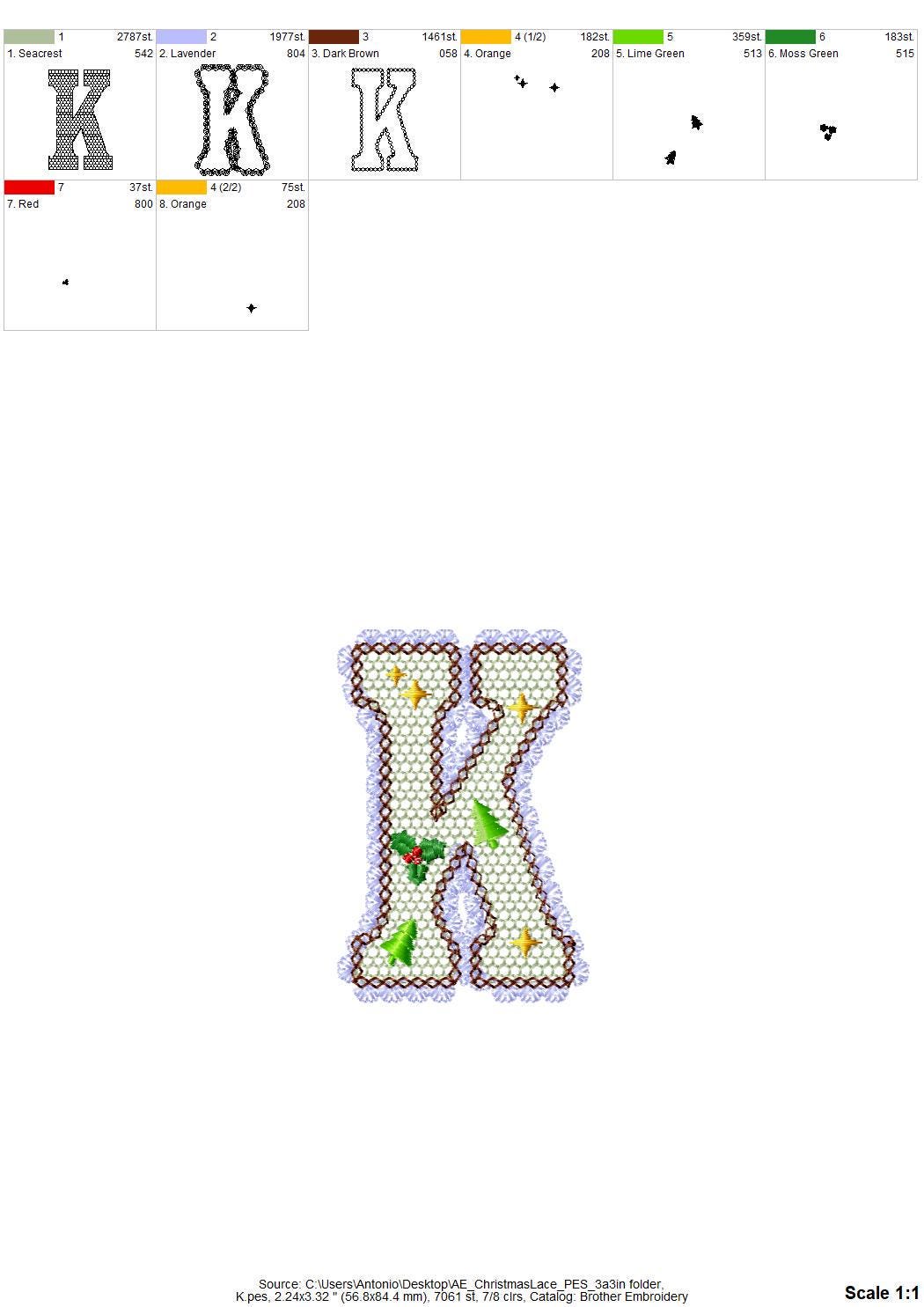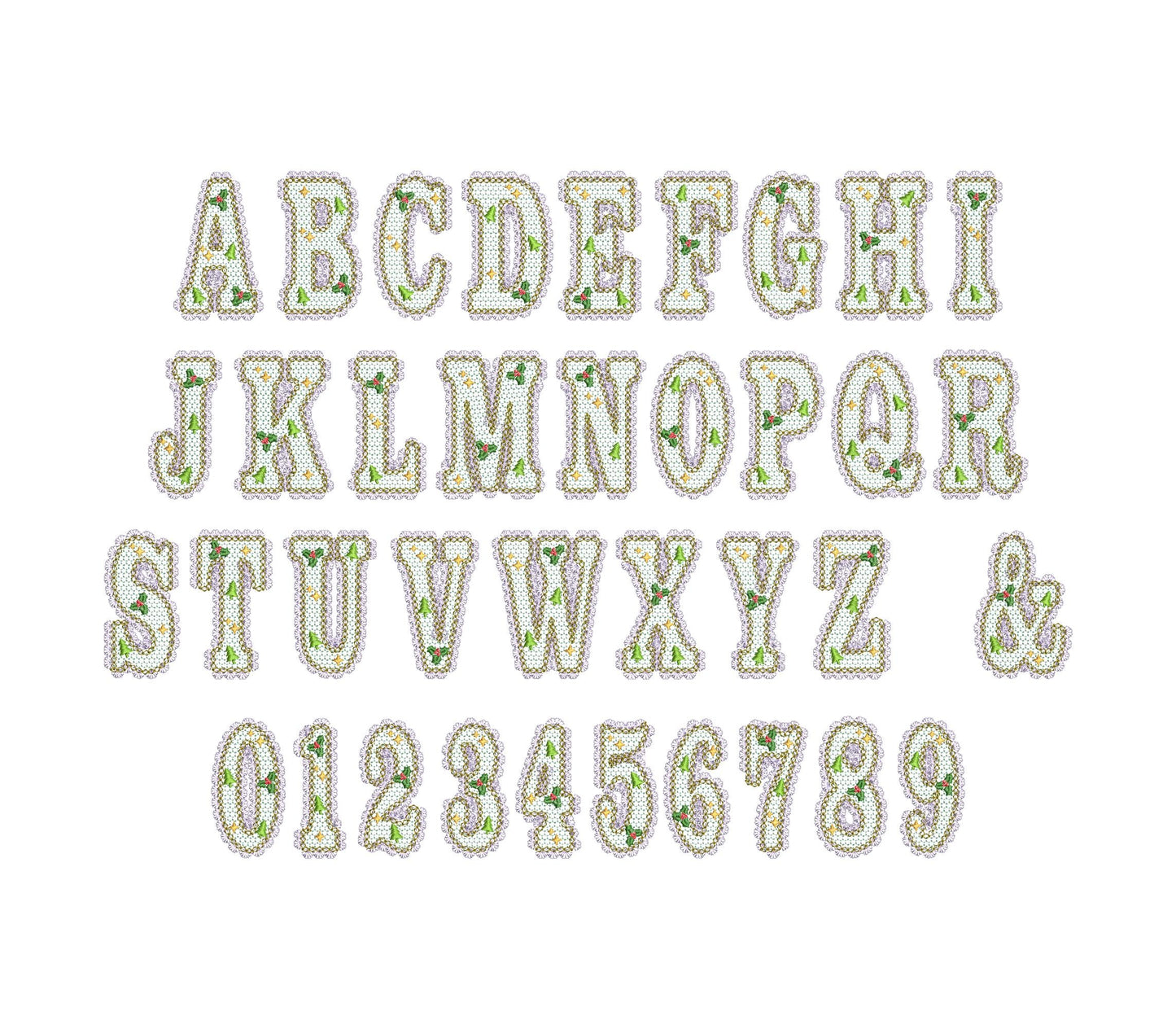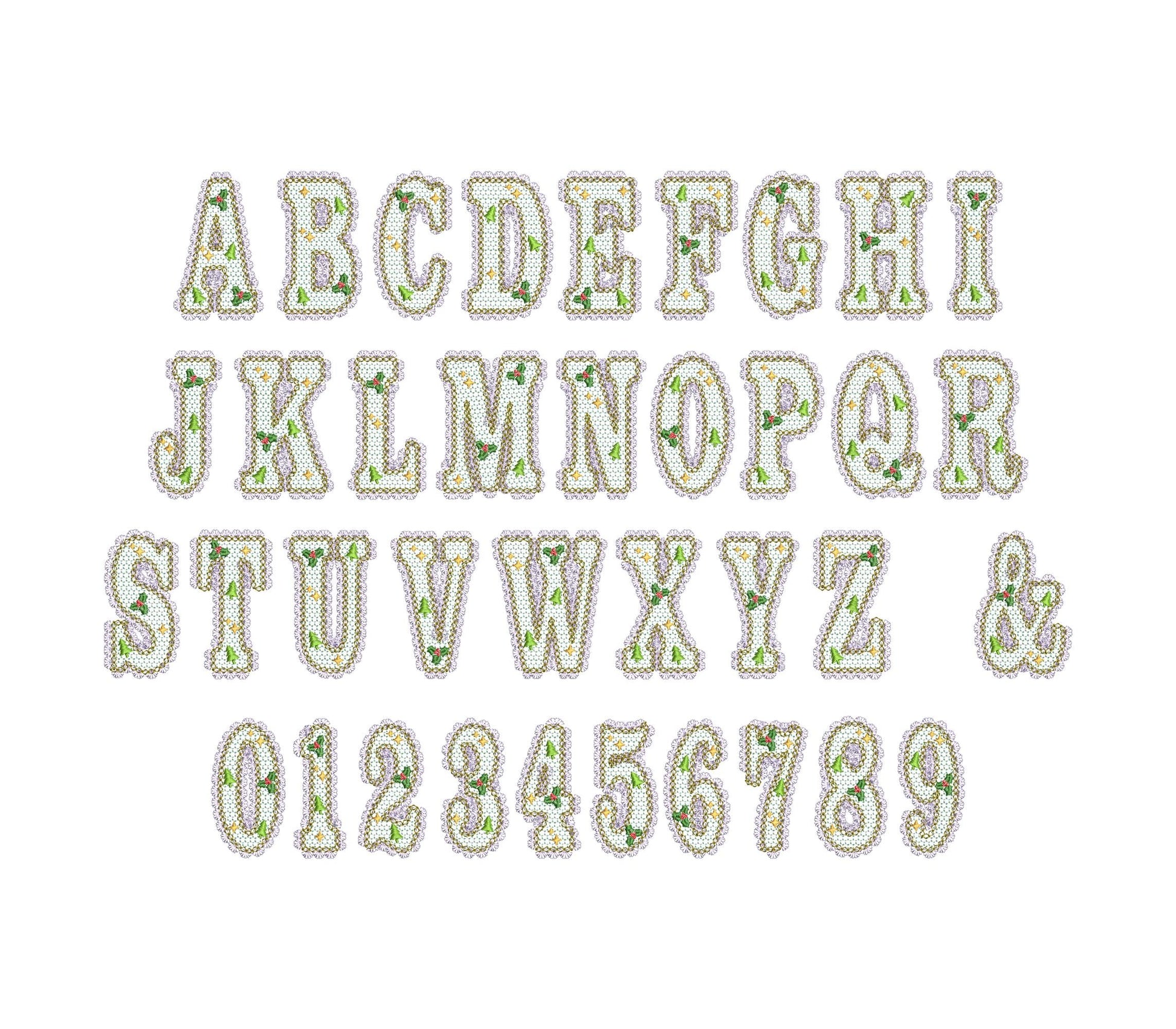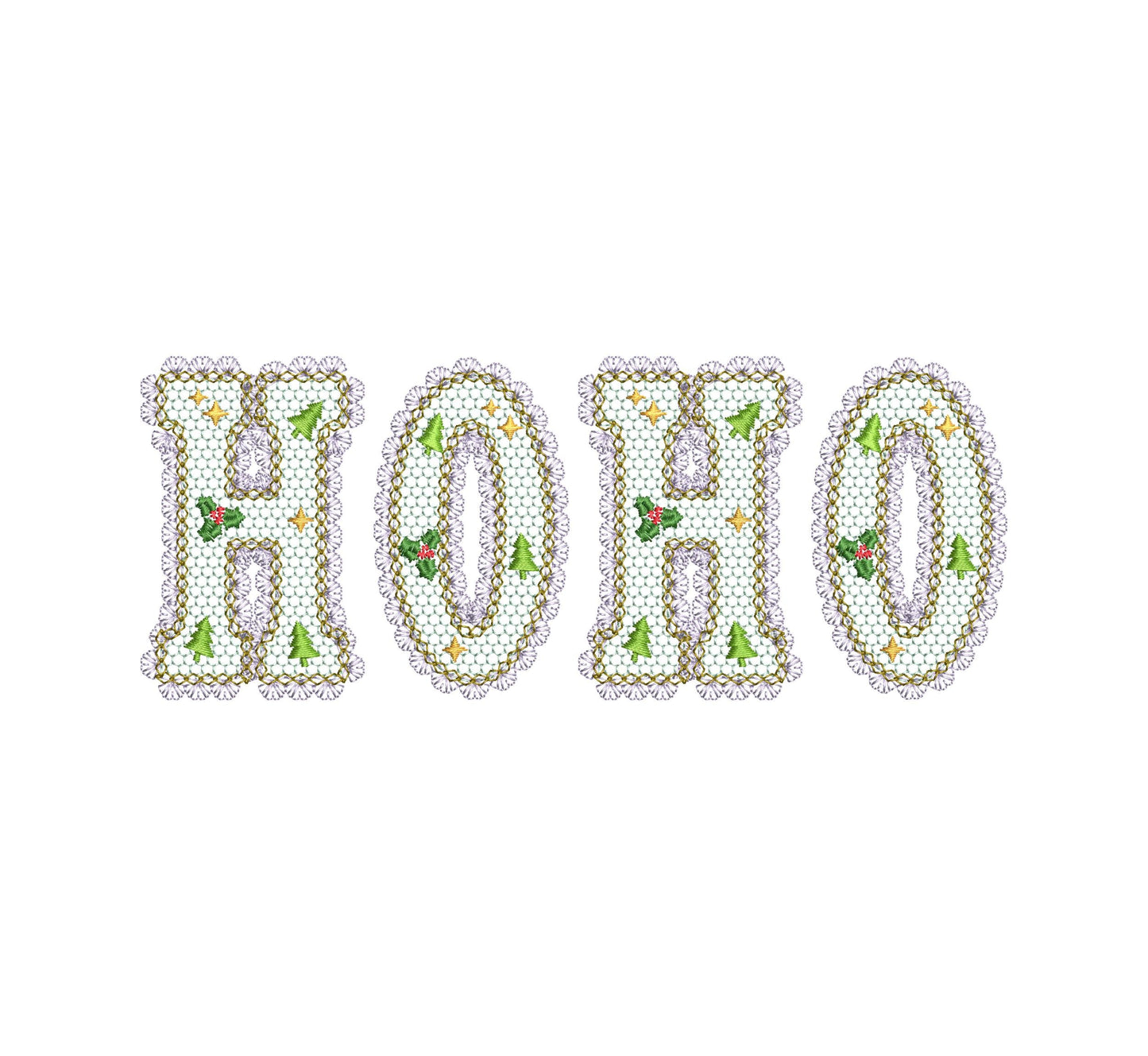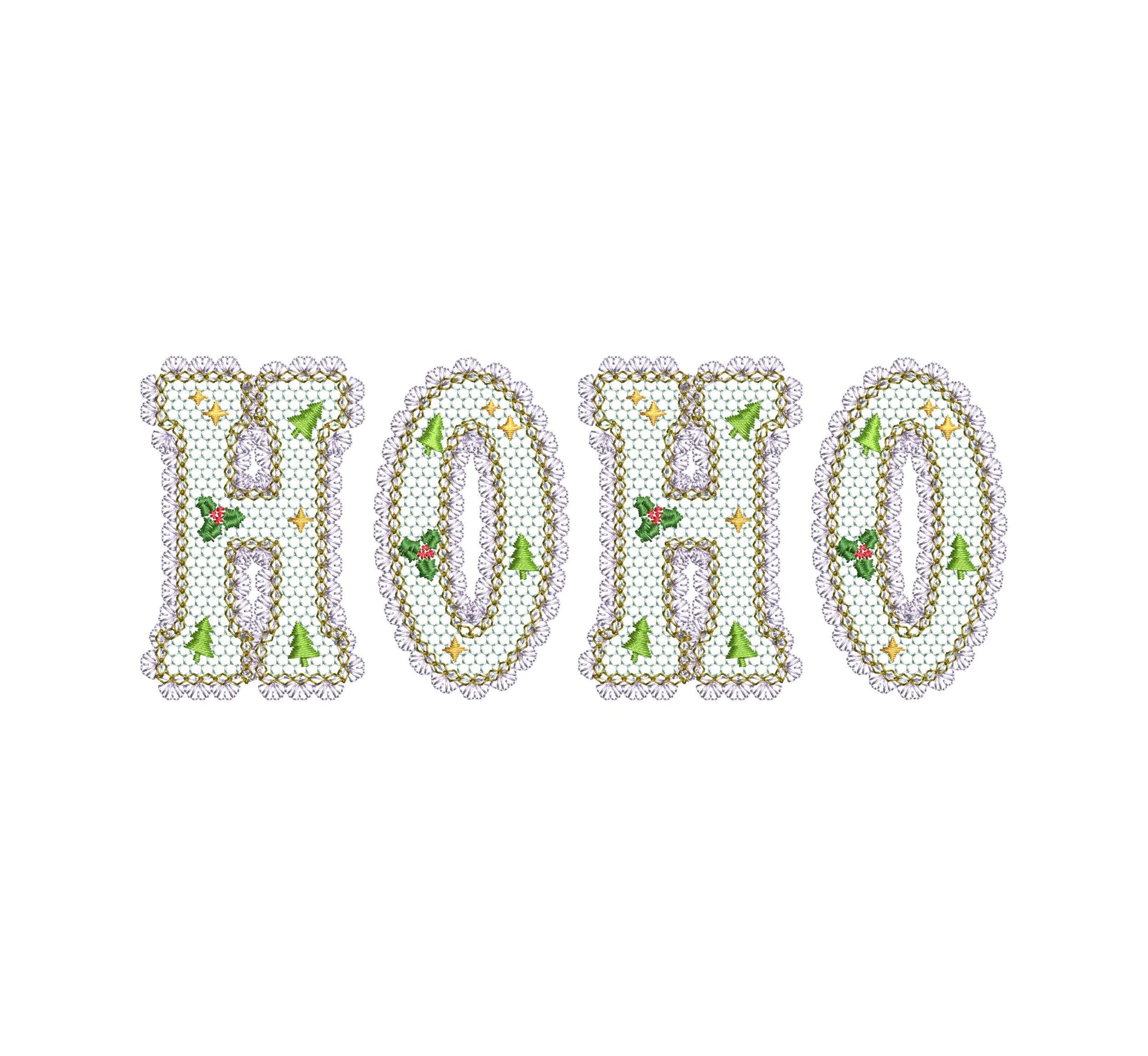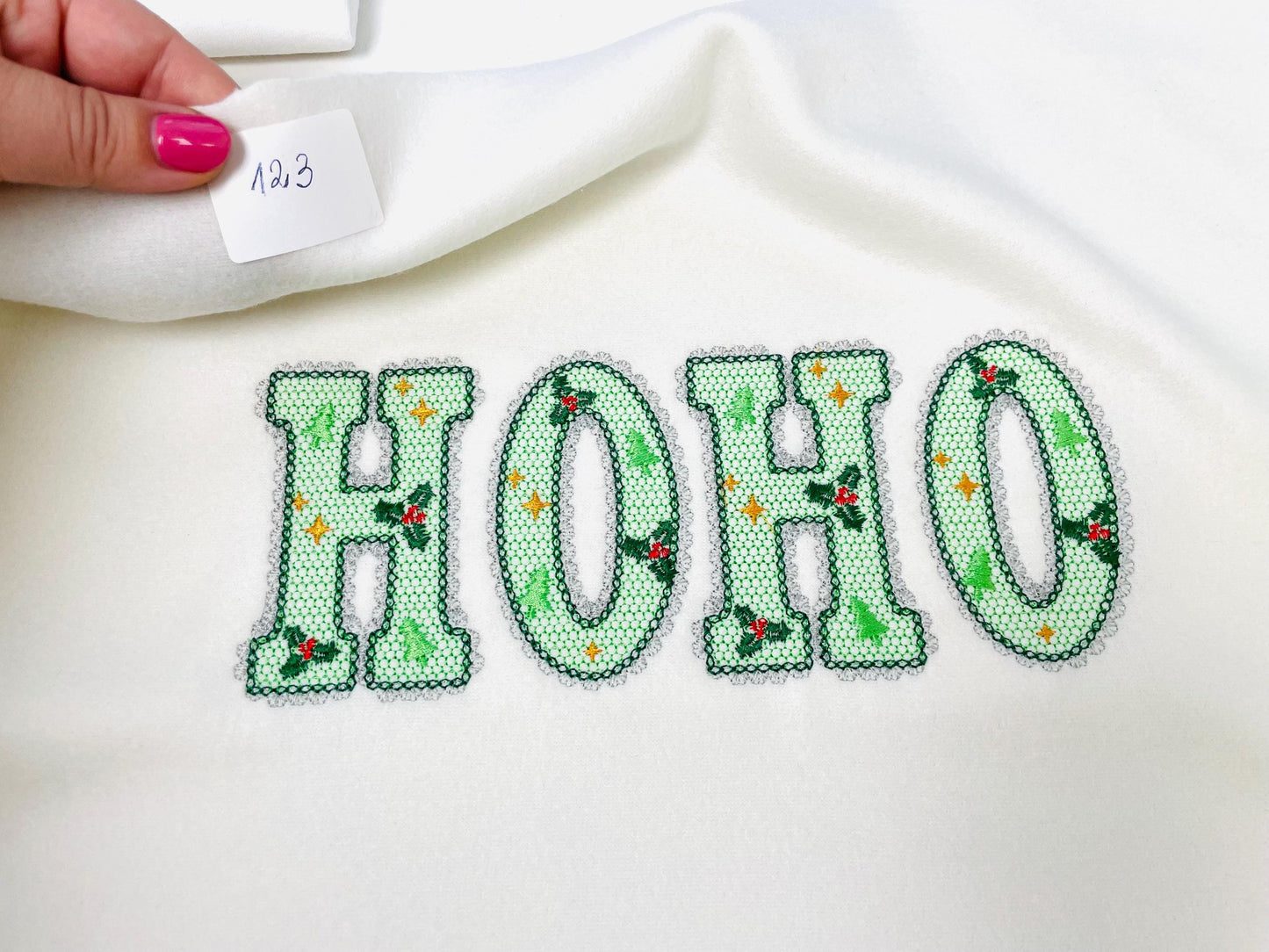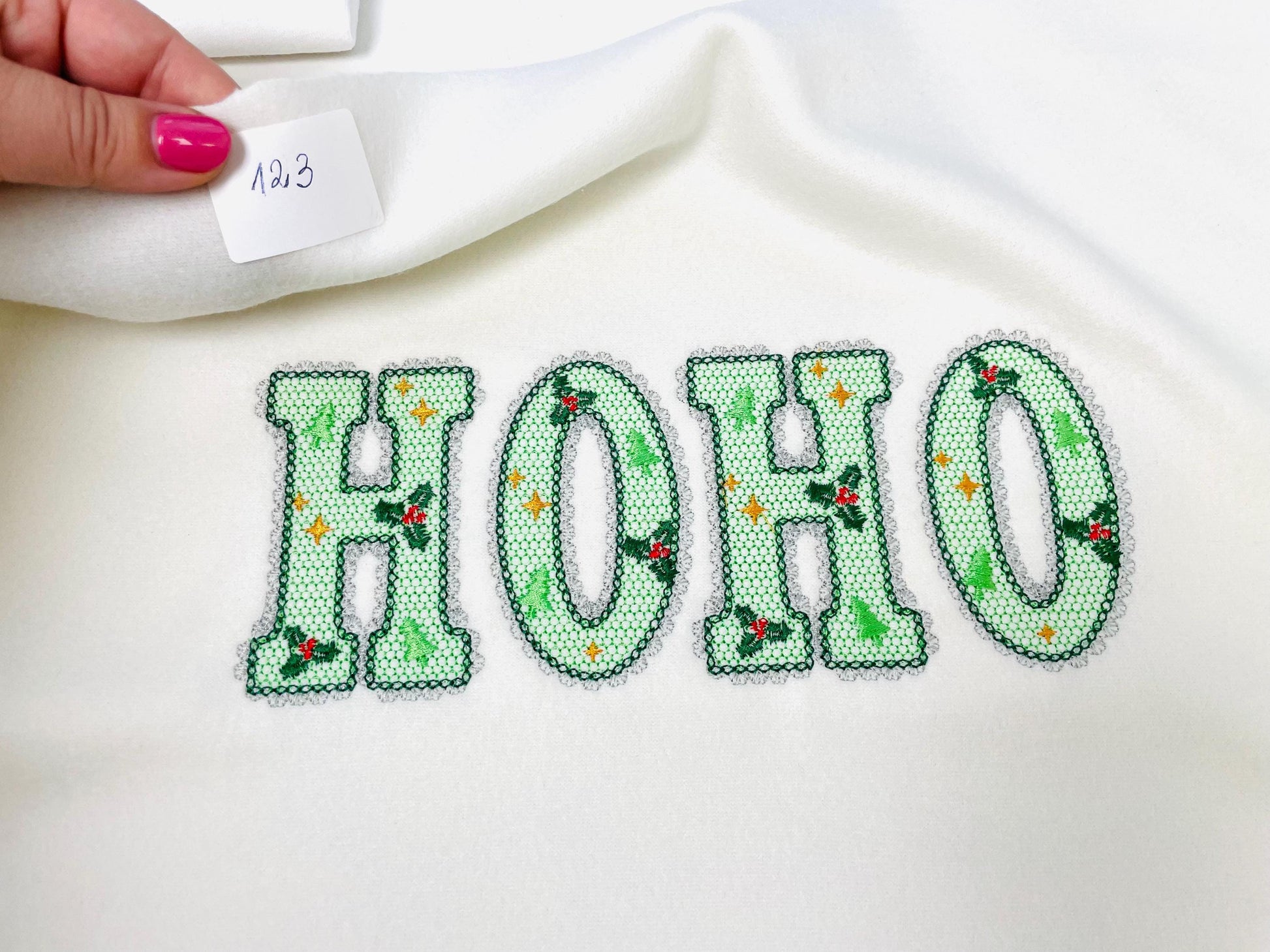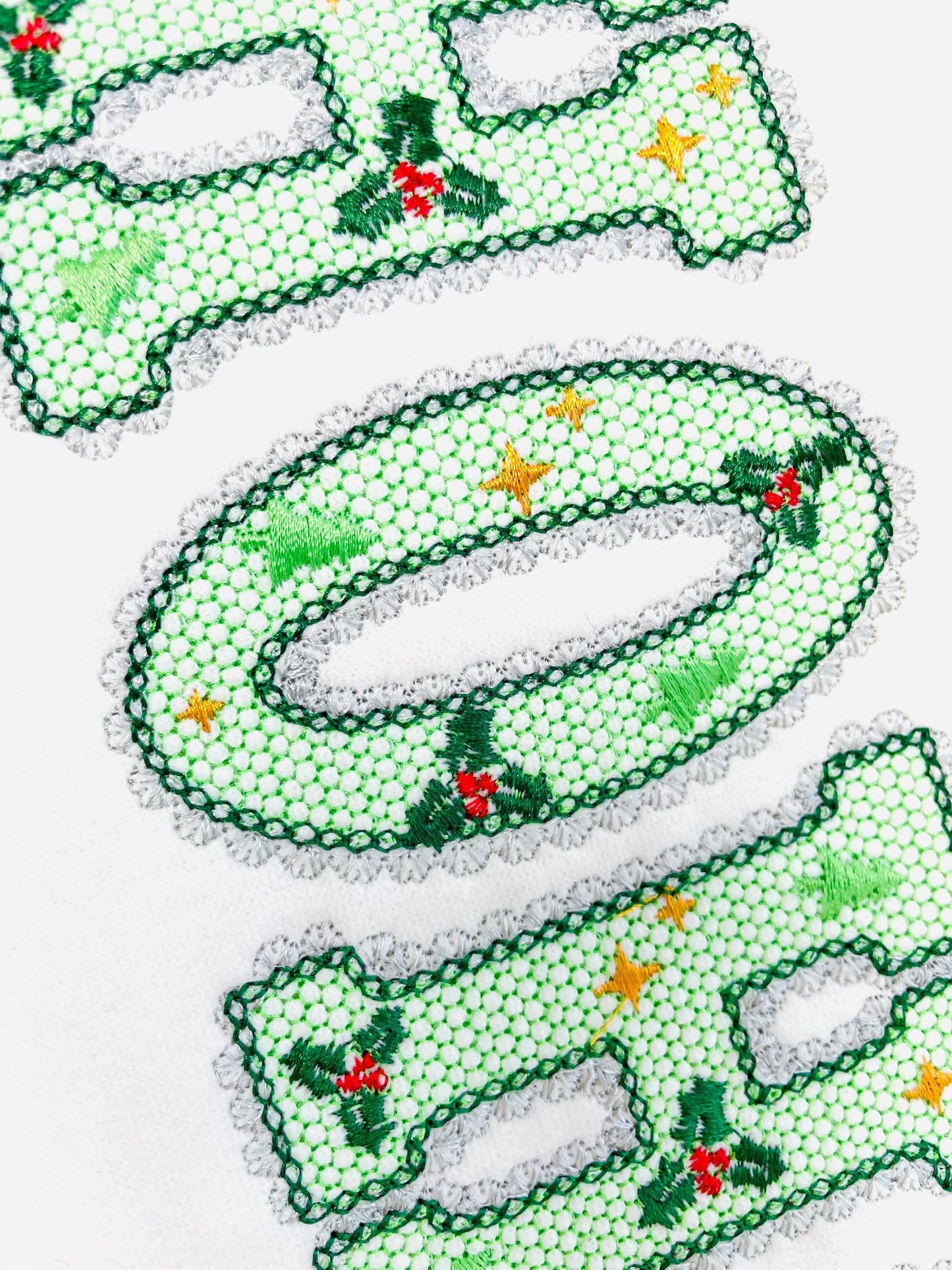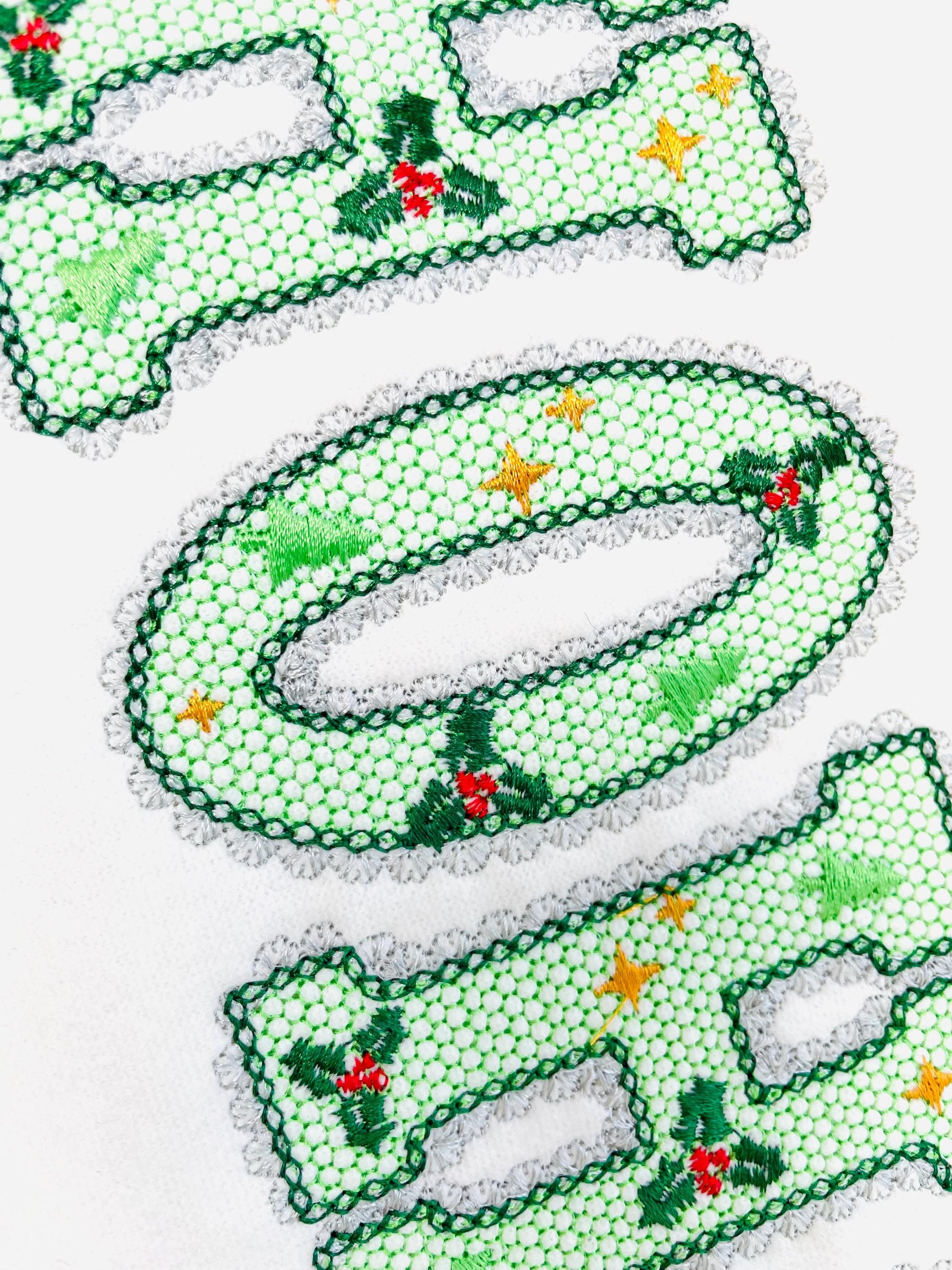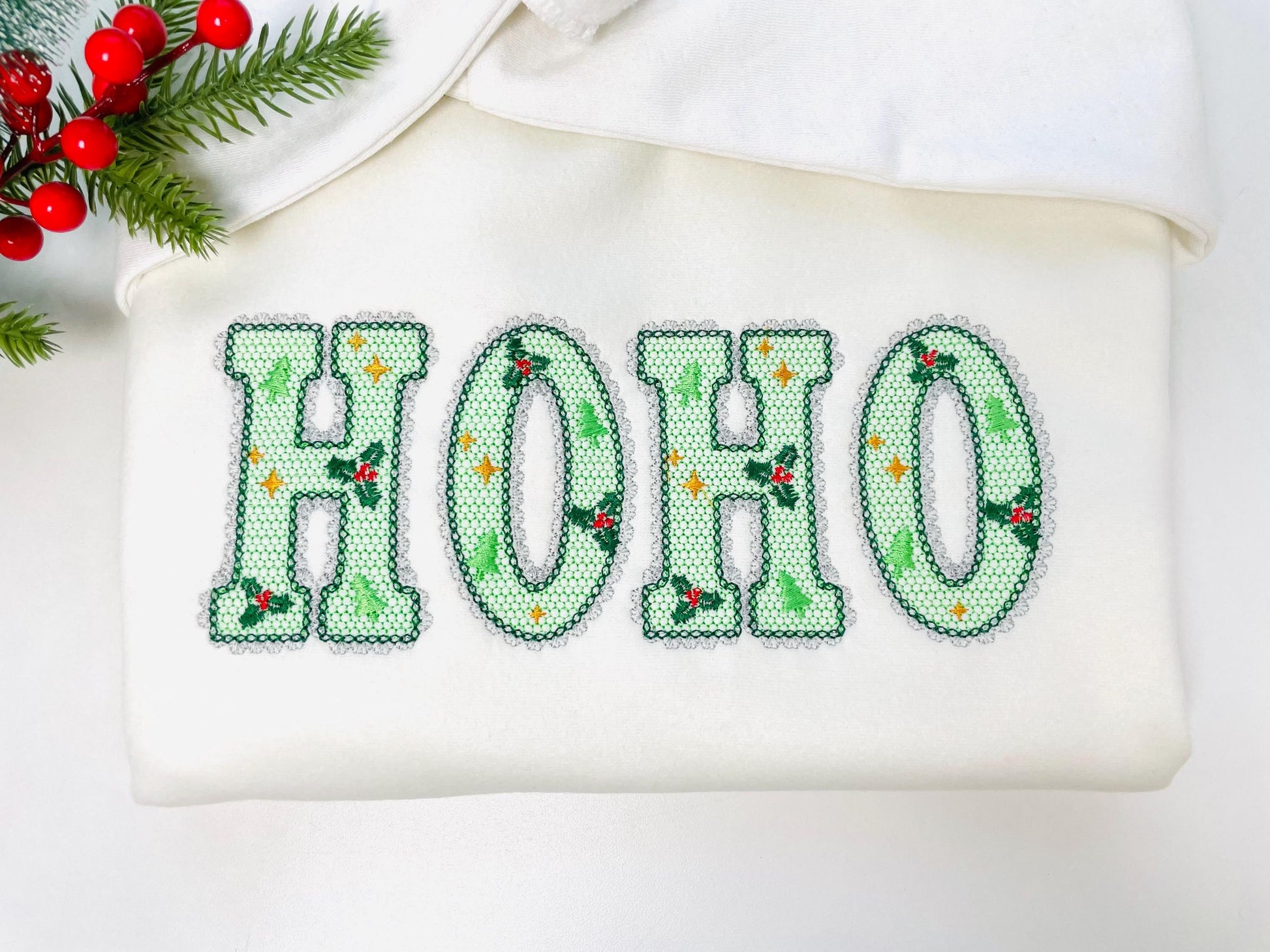
Or click to open the linkA Christmas floral font with a lace pattern and lace edge, so the fabric shows through the lace. Festive for stockings, pillows and holiday names.
Uppercase letters A to Z, numbers 0 to 9 and an ampersand, in three sizes: 2.9, 3.3 and 3.7 inches.